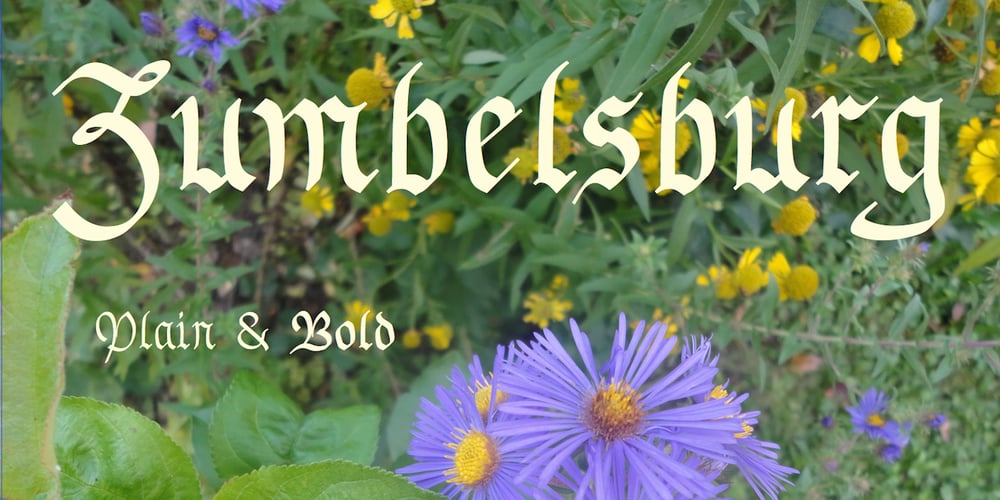
Zumbelsburg Font Family was designed by Robert Schenk and published by Ingrimayne Type. Zumbelsburg contains 2 styles and family package options. Zumbelsburg is an exuberant, calligraphic typeface. The lower-case letters of Zumbelsburg are fairly standard blackletter characters, but the upper-case letters are ornamental, often with large flourishes.